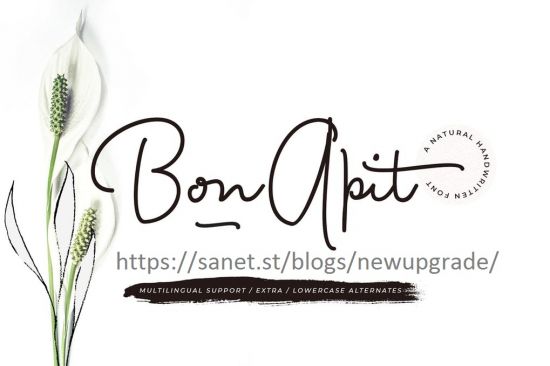
Introducing Bon Apit, a monoline script typeface with extra features. Bon Apit comes with handmade style, perfectly used for an elegant addition to any logo, invitation, product packaging, hand-written quote, greetings card, labels, logos, magazines, books, greeting/wedding cards, packaging, fashion, stationery, novels, labels or any type of advertising purpose.